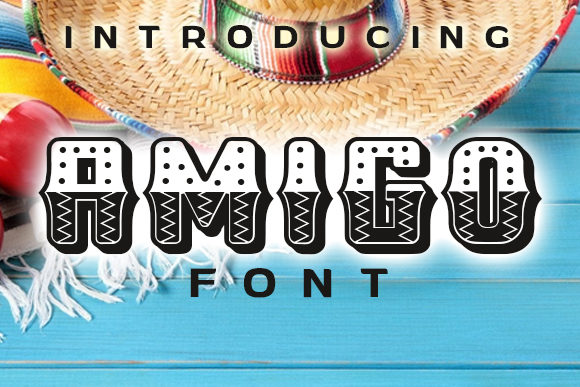
The Amigo Font: A Friendly and Versatile Companion for Your Creative Projects
I’ll never forget the time I was working on a DIY project for a friend’s birthday, trying to create a beautiful handmade card. I had all the materials ready – colorful paper, glue, scissors, and a bunch of creative ideas – but something was missing. As I browsed through my font library, I stumbled upon the Amigo font. Its cute and casual decorative style immediately caught my eye, and I knew I had found the perfect companion for my project.
Whether you’re a designer, crafter, or creative hobbyist, the Amigo font is an excellent addition to your toolkit. In this article, we’ll dive into the world of Amigo, exploring its features, uses, and some practical tips on how to make the most of this friendly font.
A Personal Review: What I Love About Amigo
Here’s what makes Amigo a standout font:
- ✨ Friendly and approachable feel: Amigo’s casual style makes it perfect for projects that require a personal touch.
- ✅ Highly legible: Even at small sizes, Amigo remains clear and easy to read.
- 🎨 Versatile: From Instagram posts to calligraphy scripts, Amigo adapts to various creative projects.
- 💕 Emotionally expressive: This font conveys warmth and kindness, making it ideal for projects that require an emotional connection.
While Amigo is an excellent font, it’s not without its quirks:
- ⚠️ Limited formal or professional use: Amigo’s casual style might not be suitable for projects that require a more formal tone.
- 🤔 Some letter combinations may appear a bit awkward: As with any font, it’s essential to test Amigo with your specific text to ensure it looks great.
The Story Behind Amigo
Amigo was designed with the intention of creating a friendly and approachable font. The designer aimed to craft a font that would convey warmth and kindness, making it perfect for projects that require a personal touch. While the exact story behind Amigo’s creation is unclear, its design reflects a deep understanding of the importance of typography in creative projects.
| Font Name | Amigo Font |
| Author | vladimirnikolic |
| What is the Amigo font best used for? | Amigo is perfect for creative projects that require a friendly and approachable feel, such as DIY projects, Instagram posts, and calligraphy scripts. |
| Is Amigo suitable for formal or professional projects? | While Amigo is an excellent font, its casual style might not be suitable for projects that require a more formal tone. Consider using a more formal font for projects like business reports or academic papers. |